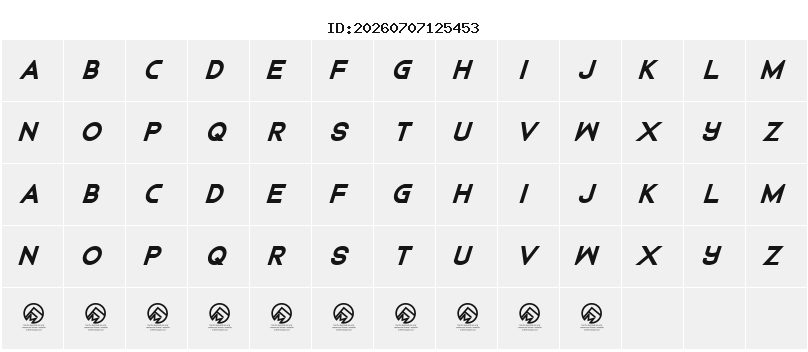
• Font Name: Dedecus
• Full Font Name: Dedecus Bold Italic
• Designer: Chris Vile
• Manufacturer: Fontillery
• Description: Dedecus Bold Italic is a font by Fontillery, designed by Chris Vile in 2014.
About Dedecus.ttf
Dedecus.ttf is a modern, elegant sans-serif font designed for ultimate readability and visual harmony. Perfect for branding, headlines, web design, and print materials.